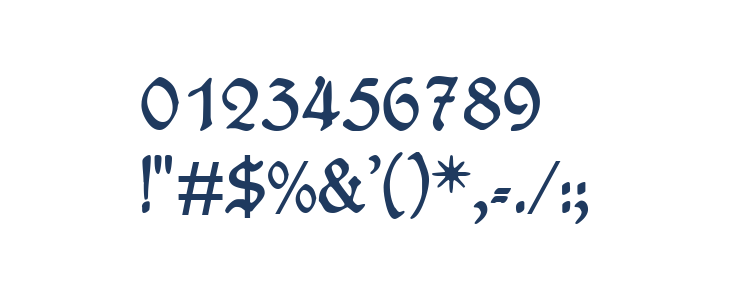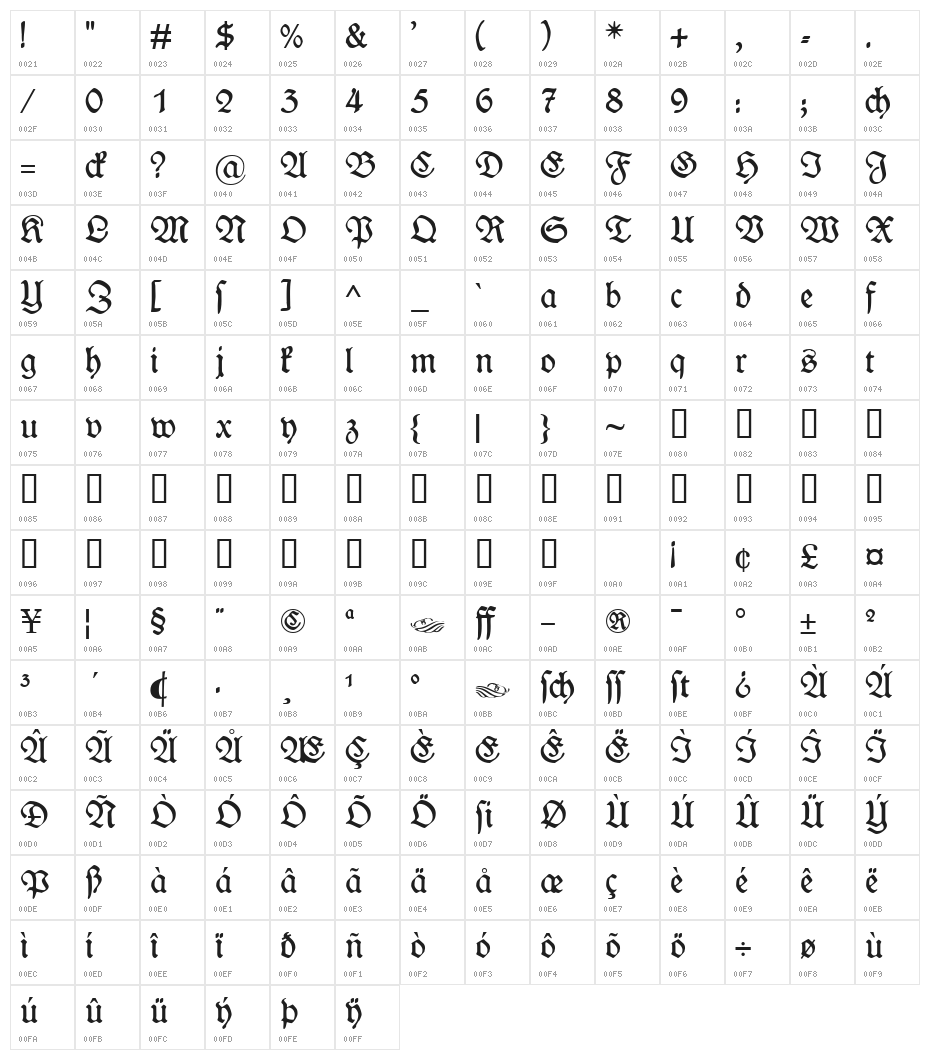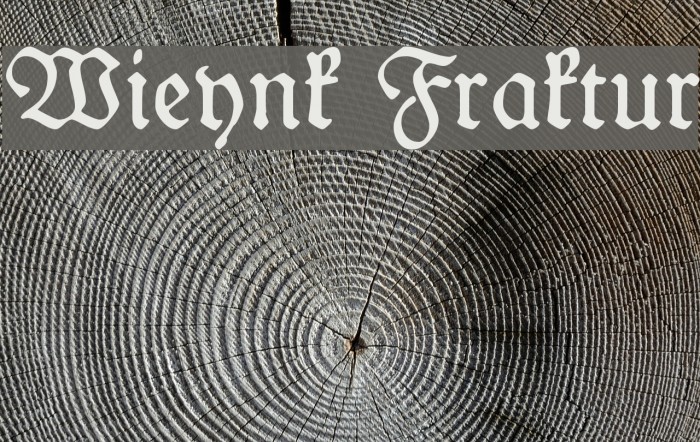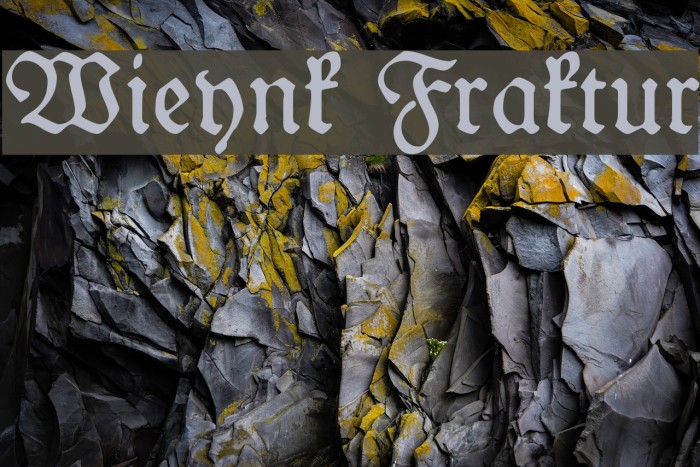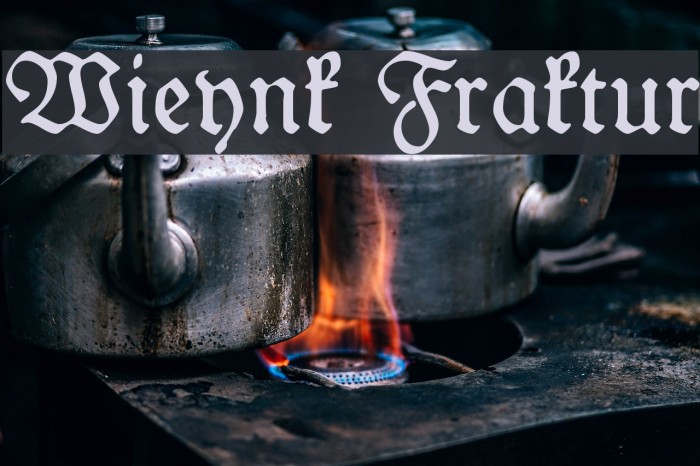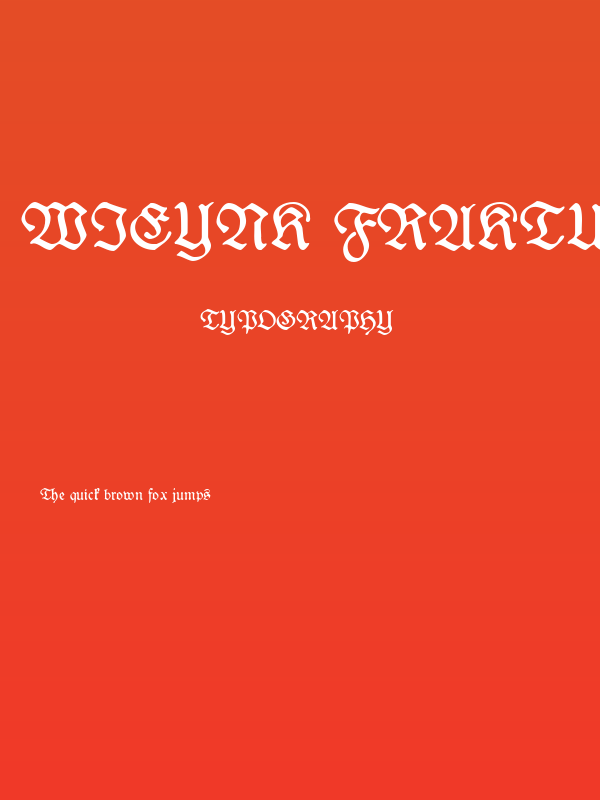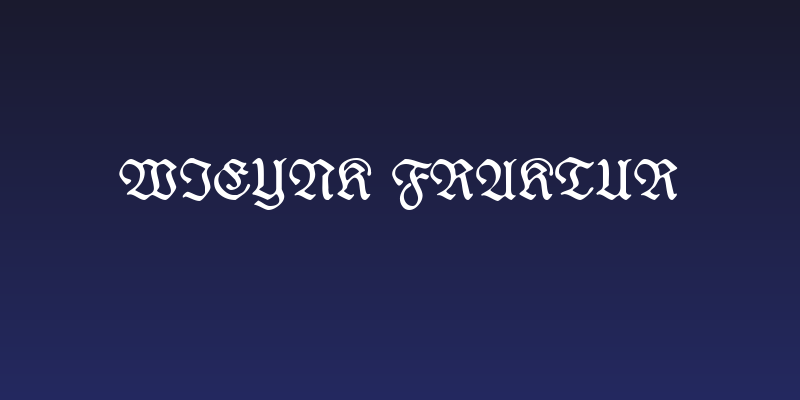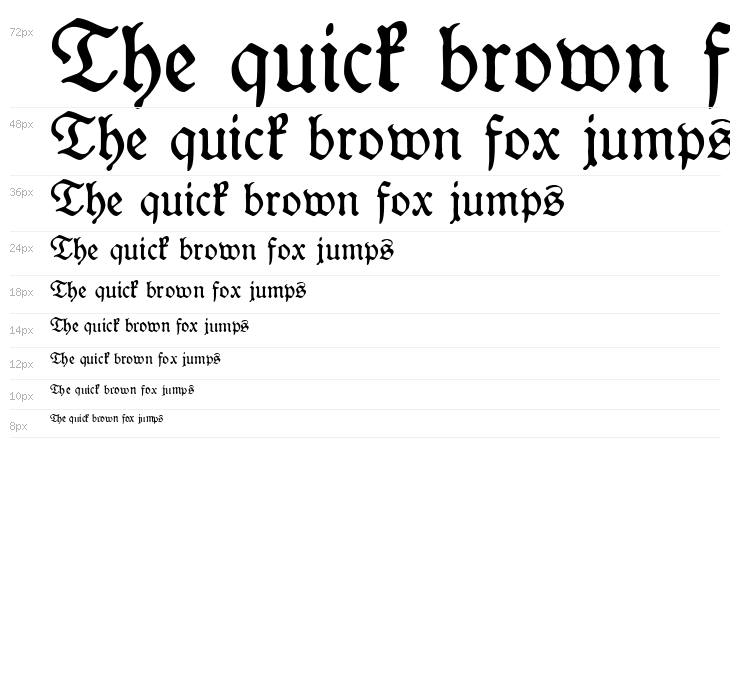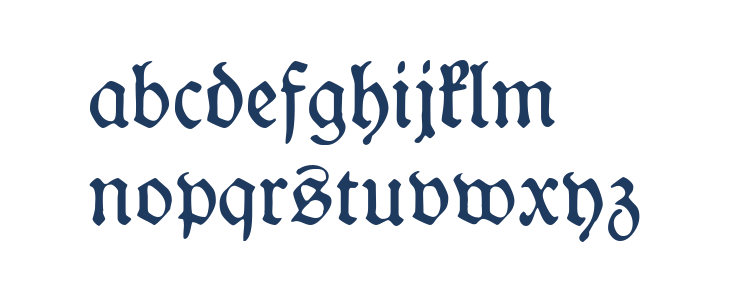
This font embodies the traditional elegance and intricate detailing of classic blackletter styles. Each character is crafted with sharp, angular lines and ornate flourishes, giving it a distinct medieval appearance. The uppercase letters are particularly elaborate, featuring bold strokes and decorative serifs that enhance their visual impact. The lowercase letters maintain a consistent style, with a slightly more subdued design that complements the uppercase set. Numerals and special characters are equally well-designed, ensuring a cohesive look across all text elements. This font is ideal for projects that require a historical or gothic aesthetic, offering a sense of grandeur and sophistication.
| Use Case | Headlines, Logos, Decorative text |
| Proposed Projects | Suitable for historical documents, gothic-themed designs, book covers, and event invitations. |